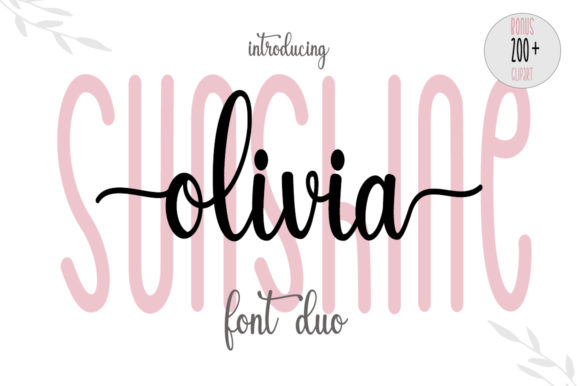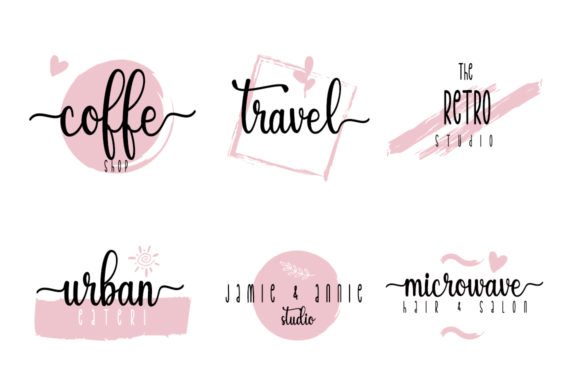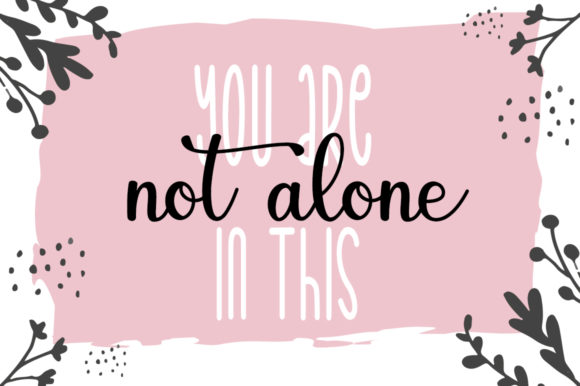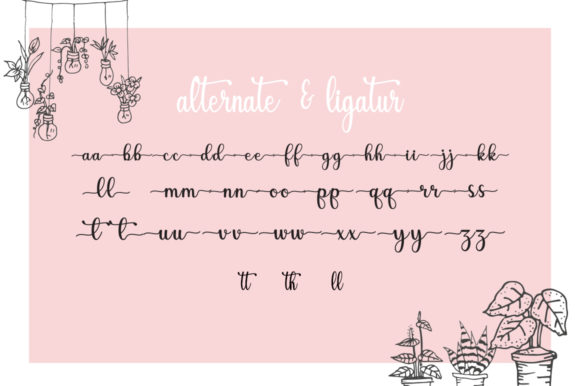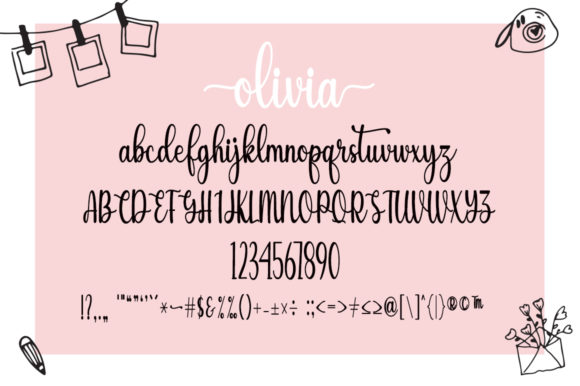
Sunshine Olivia Font
Sunshine Olivia is a spectacular duo font, defined by characters that dance along the baseline. Incredibly versatile, this font fits a wide pool of designs, elevating them to the highest levels. Add this font to your favorite creative ideas and notice how it makes them come alive!